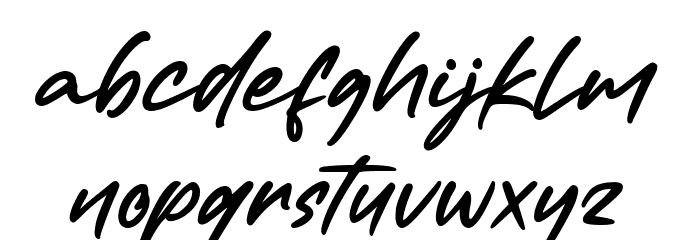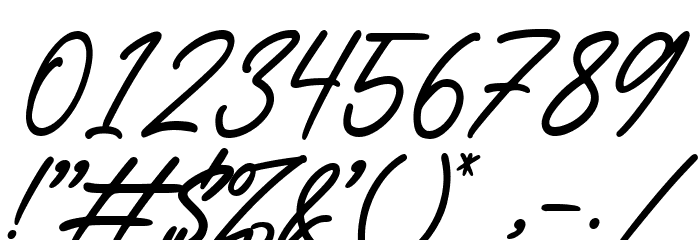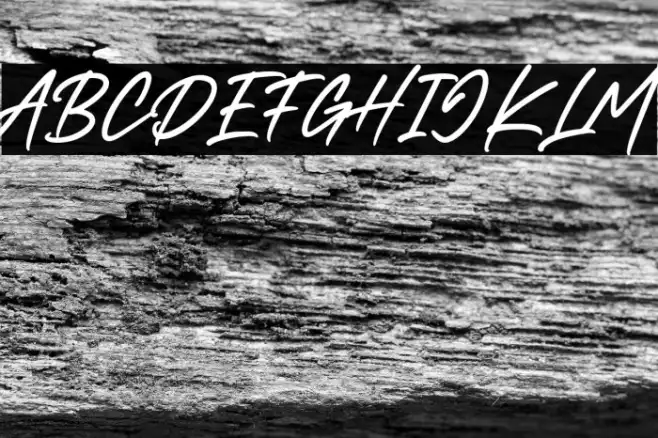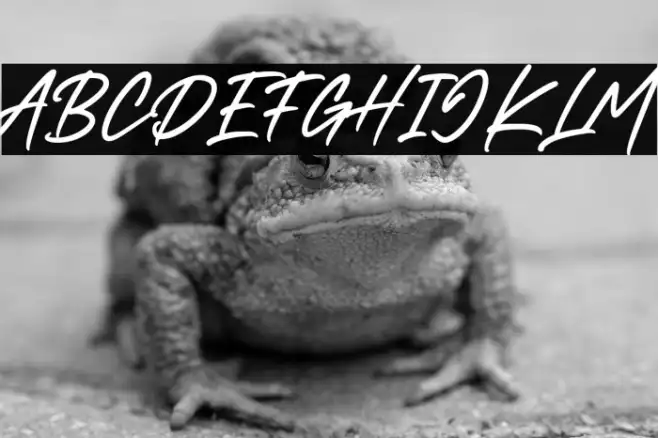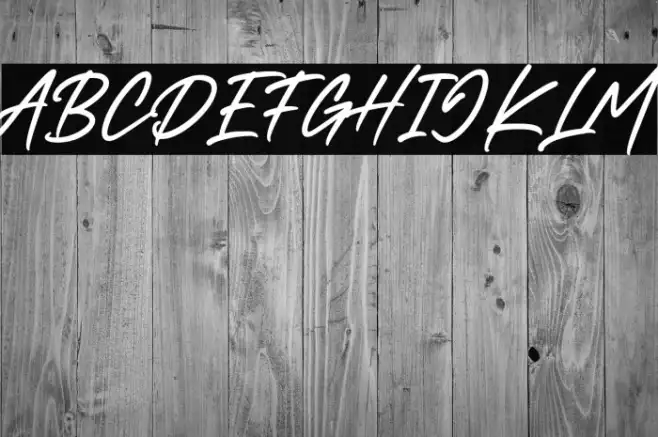
Dark Twenty Font
This font features a dynamic and expressive handwritten style, characterized by its fluid and cursive letterforms. The strokes are bold and confident, with a slight slant that adds a sense of motion and energy. The uppercase letters are slightly larger and more pronounced, while the lowercase letters maintain a consistent flow, enhancing readability. Numbers and special characters are crafted with the same attention to detail, ensuring a cohesive look across all elements. The overall appearance is modern yet personal, making it suitable for projects that require a touch of elegance and individuality.
A bold, cursive handwritten font with dynamic and expressive strokes.
- Proposed Projects: Ideal for branding, invitations, greeting cards, and social media graphics where a personal touch is desired.
- Use Case: Logos, Headlines, Invitations